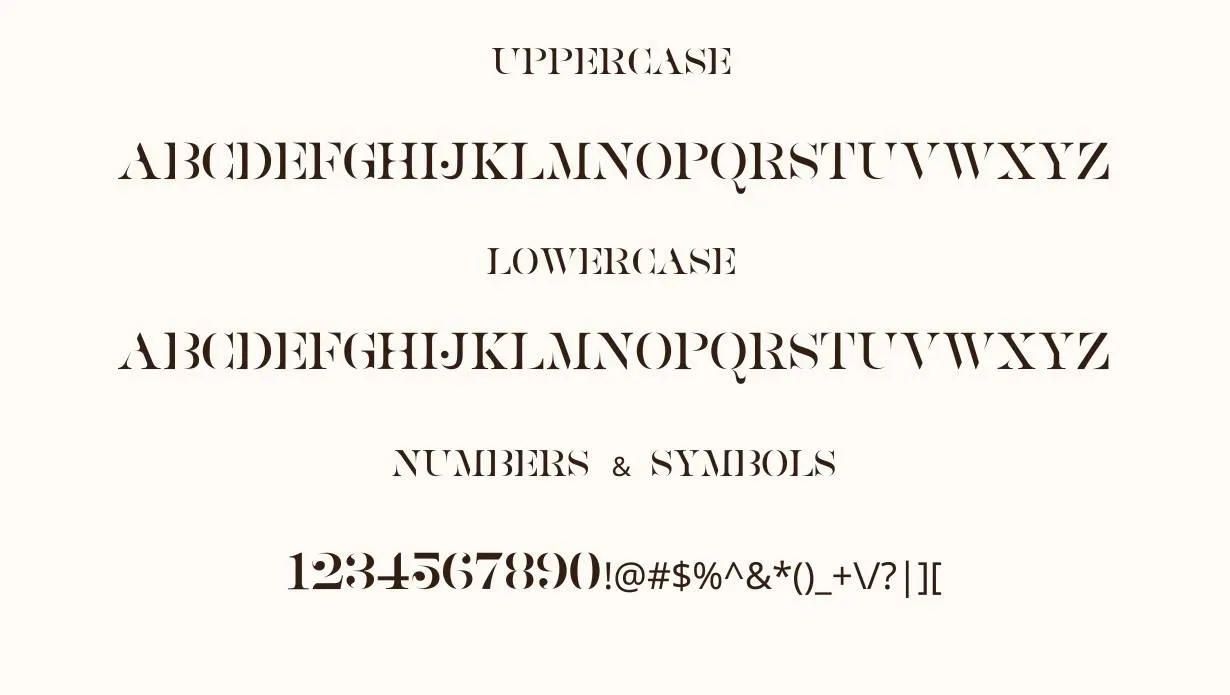
The Saturdate font is like a breath of fresh air for your words, perfect for projects that want to convey a laid-back and friendly vibe.
It’s ideal for casual gatherings, invitations to weekend events, or anything that aims to capture the spirit of a relaxed Saturday. When your words wear the Saturdate font, they radiate an easygoing charm that feels approachable and welcoming.